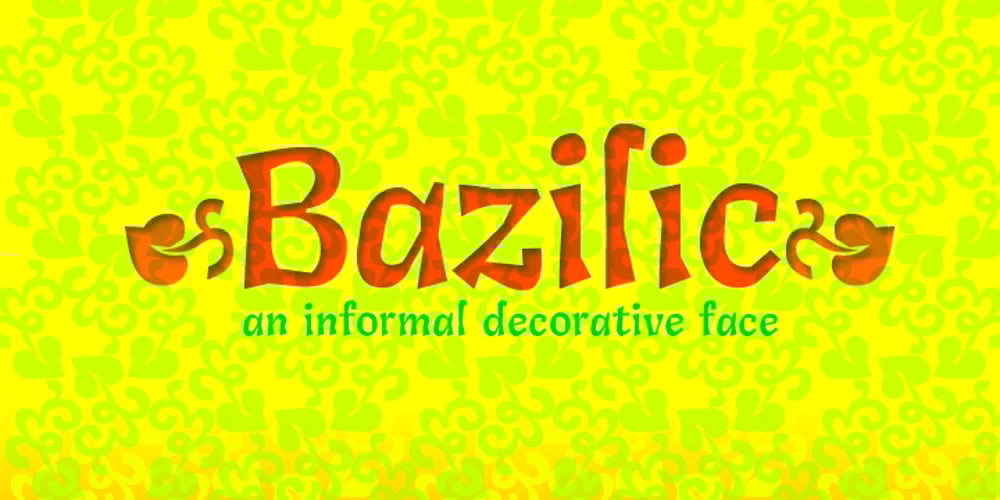
Bazilic
Bazilic font
Bazilic Font Family was designed by Cyrill Tkachev and published by Tkachev. Bazilic contains 1 styles and family package options. Bazilic is an informal decorative typeface. It would look nice in greeting cards, children’s books and magazines, on candy and food packages, holiday posters and flyers. Bazilic was based on informal lettering.